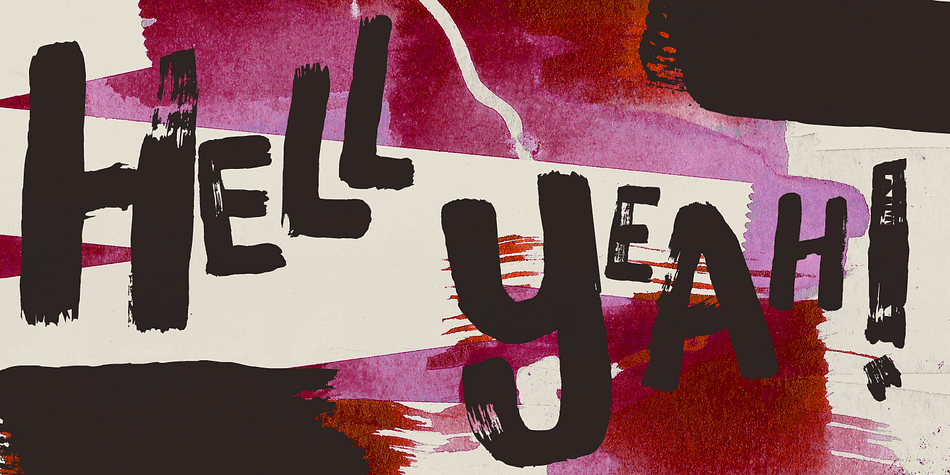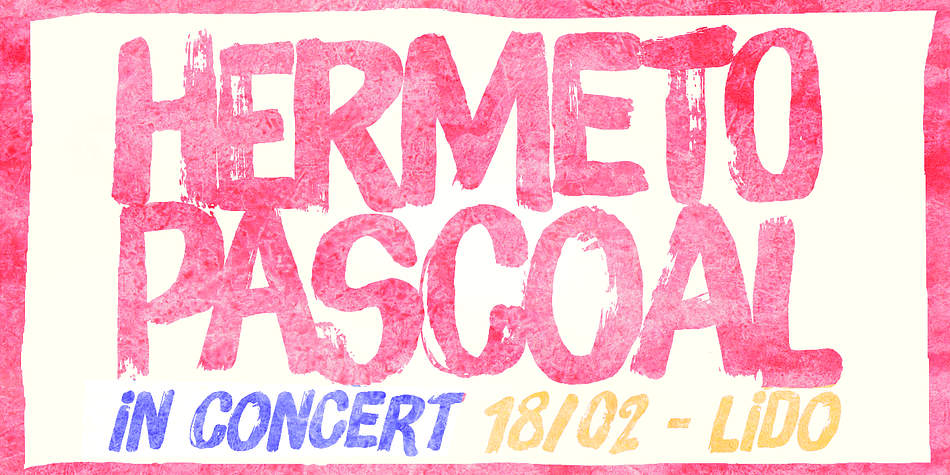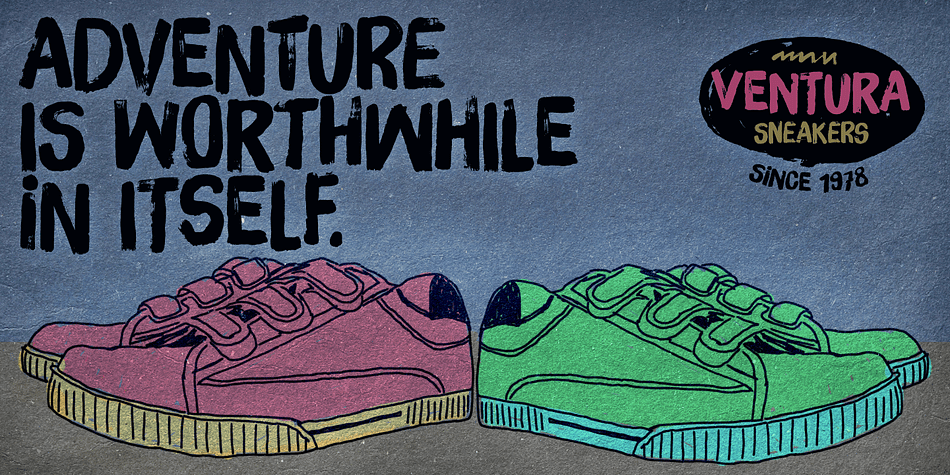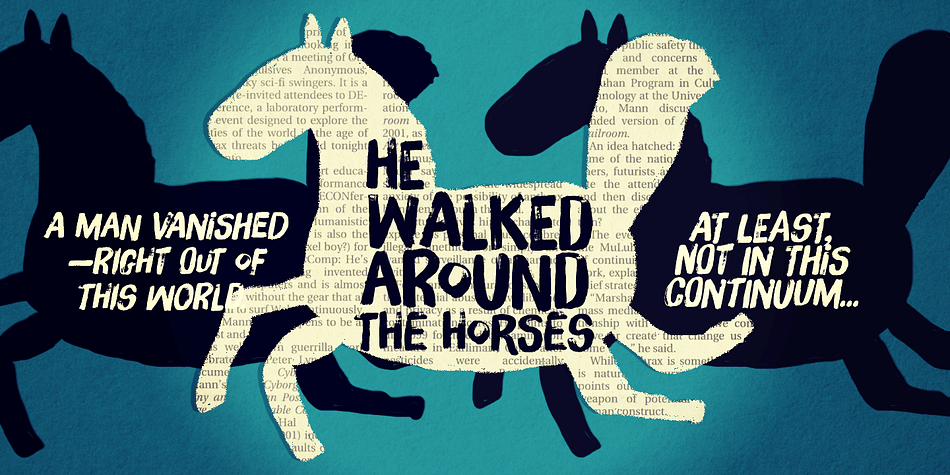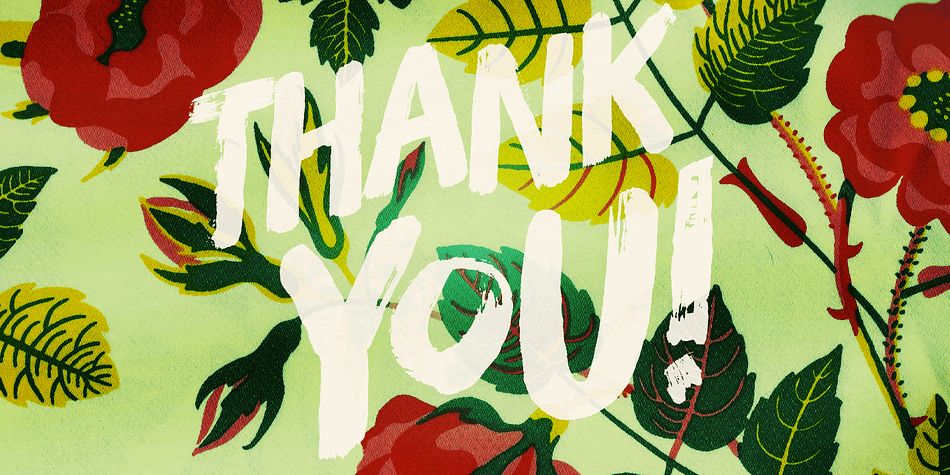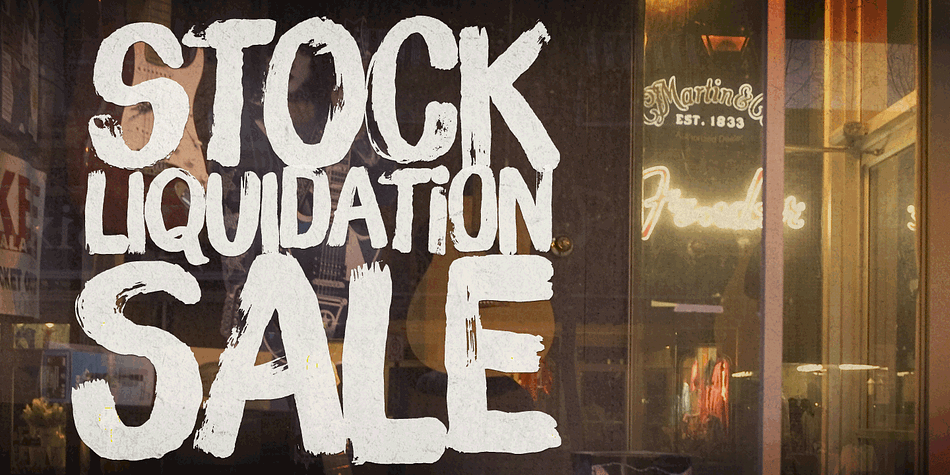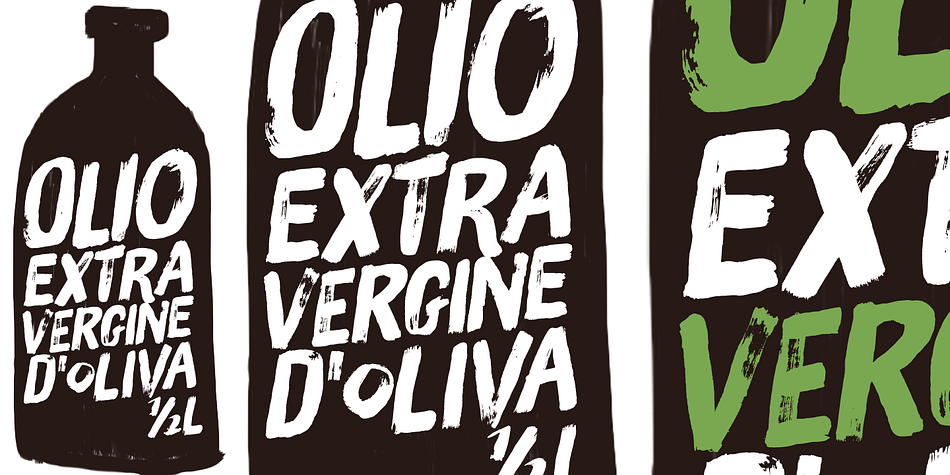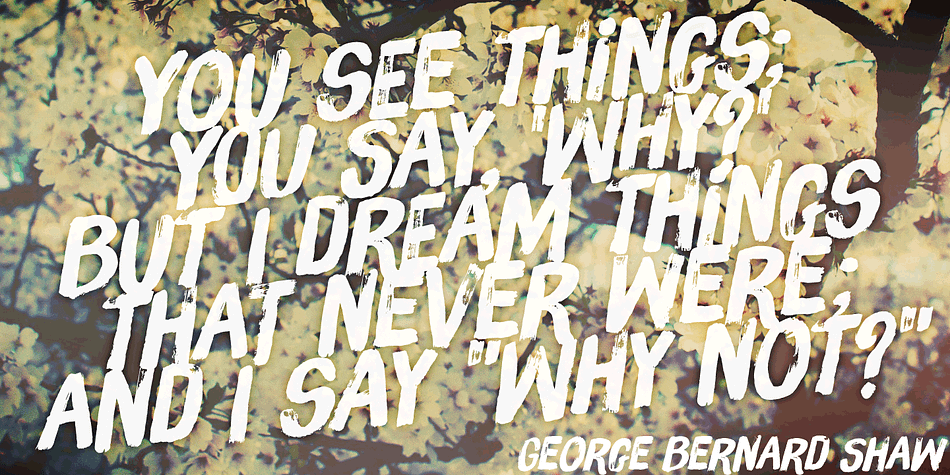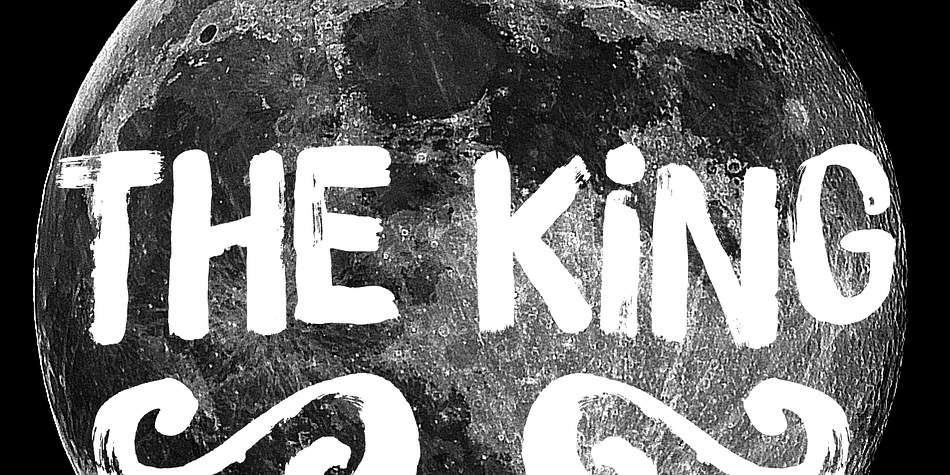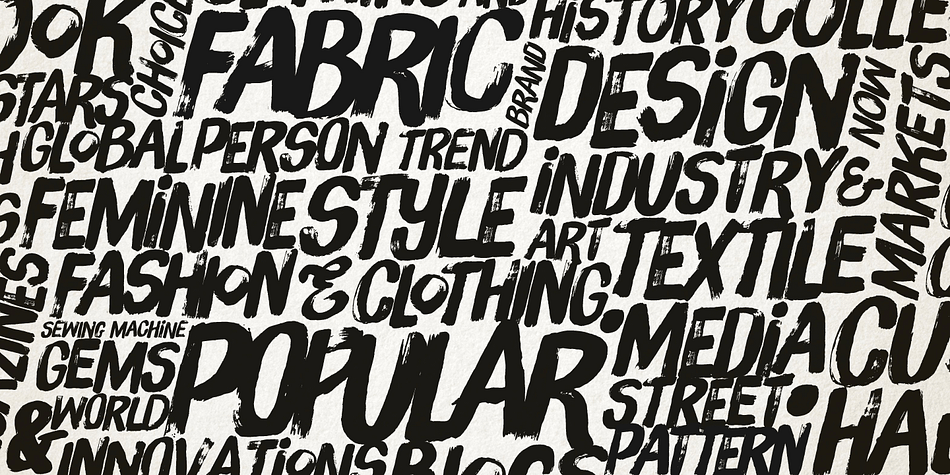
Brush Up is a grunge font family. This typeface has two styles and was published by PintassilgoPrints.
Brush Up is the cool handpainted typeface you are looking for. Swiftly painted on paper and carefully translated into a font, it brings 3 glyphs for each letter and 2 for each number, plus variations for some punctuation marks. The font is nicely programmed to cycle these alternate glyphs when Contextual Alternates engines of applications are turned on. Or, you can always pick up your choices manually through a glyphs palette. Either way it will certainly turn out refreshing!
Surprisingly versatile, Brush Up is available in two cuts – upright and oblique – and will greatly fit tons of purposes.
Is it a headline? A small chunk of text? Maybe not that small? Ok, just Brush’em all!